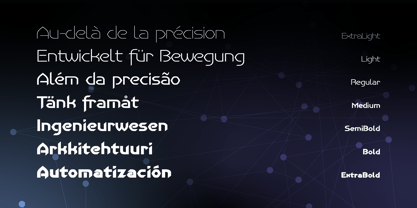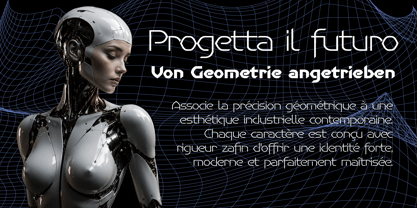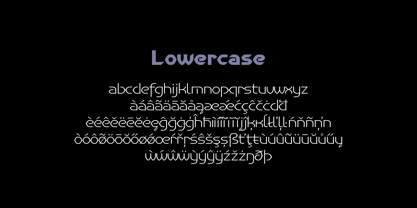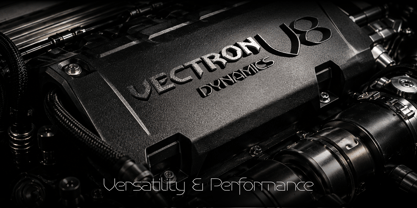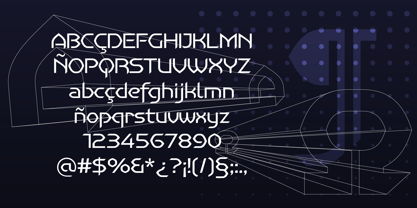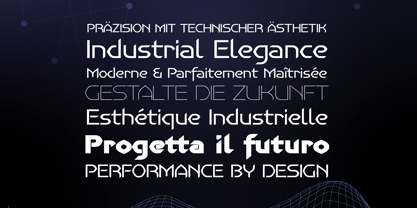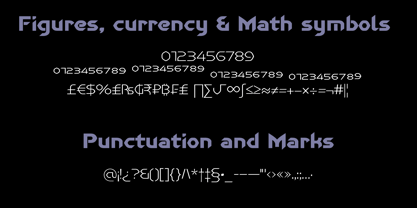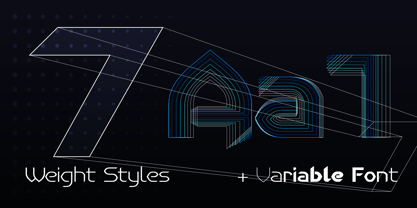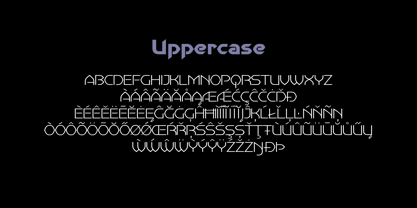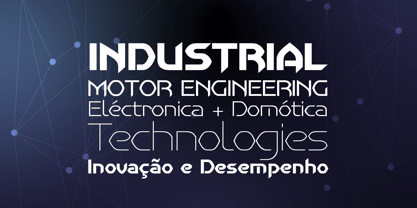
UltraQD
The UltraQD Font Family was designed by John Vargas Beltrán and published by JVB Fonts. UltraQD contains 8 styles and family package options. More about this family
Geometry is only the beginning. UltraQD was born from a simple idea: to explore what happens when geometry is pushed beyond its conventional limits. Originally conceived under the name UltraQuad, this project investigated the visual possibilities of the square as a structural principle. As the typeface evolved, so did its identity, resulting in UltraQD—a shorter, sharper name that better reflects the family's technical character and contemporary spirit. Rather than following the familiar path of classic geometric sans serifs, UltraQD approaches geometry as an engineering discipline. Every glyph is constructed through a controlled balance of straight segments, calculated angles, and carefully restrained curves. Nothing is decorative; every transition, cut, and intersection exists for structural reasons. This disciplined construction gives UltraQD a distinctive voice: mechanical without feeling cold, futuristic without relying on clichés, and expressive while remaining remarkably clean. Its personality naturally fits industries where precision is part of the visual language, including advanced manufacturing, automotive design, robotics, aerospace, industrial design, architecture, consumer electronics, gaming, motion graphics, and interface design—all sharing the same vocabulary of engineered forms, and UltraQD speaks that language fluently. Although conceived as a display family, UltraQD maintains excellent clarity across headlines, branding systems, and large-format communication. The generous proportions, distinctive terminals, and geometric rhythm create a strong visual impact while preserving readability. The complete family is designed to include seven weights, ranging from an elegant ExtraLight to a powerful ExtraBold, accompanied by a fully featured Variable Font that allows continuous interpolation throughout the entire weight spectrum. UltraQD is not an attempt to imitate the future; it is typography designed with the same mindset used to create the products that define it: engineered, deliberate, and uncompromising. Features include seven carefully balanced weights, a Variable Font, extended Latin language support, OpenType features, and it is designed for branding, technology, and industrial communication, making it perfect for automotive, architecture, gaming, UI, packaging, and editorial headlines.